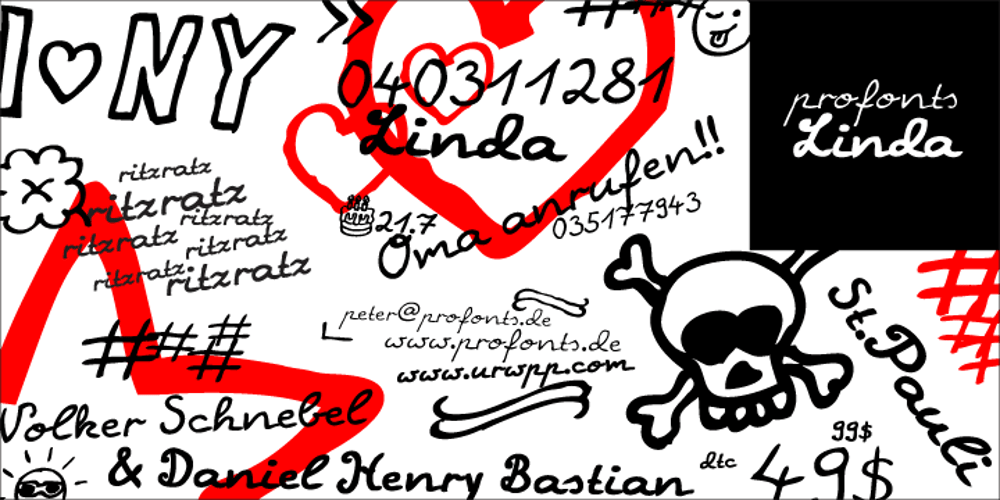
Linda
Linda font
Linda Font Family was designed by Volker Schnebel, Daniel Henry Bastian and published by profonts. Linda contains 3 styles and family package options. Linda – a typeface not only for girls! Linda, a graphic design trainee, started this font as an experiment. It should become a professional typographic project. Linda is like Linda: youthful, feminine, and easygoing. Dear Linda,we are quite happy now you are finished. We enjoyed an exciting period of time with you, and we learned a lot of new things through you. With every new step, we became more convinced of you. Your aesthetics, your easiness, and your wonderful Teenie-charakter are so beautiful and charming. Copy text or headlines: your flow is absolutely fantastic and versatility is your strength. We really look forward to seeing more of you, maybe on posters or book titles, for example. Just carry on.